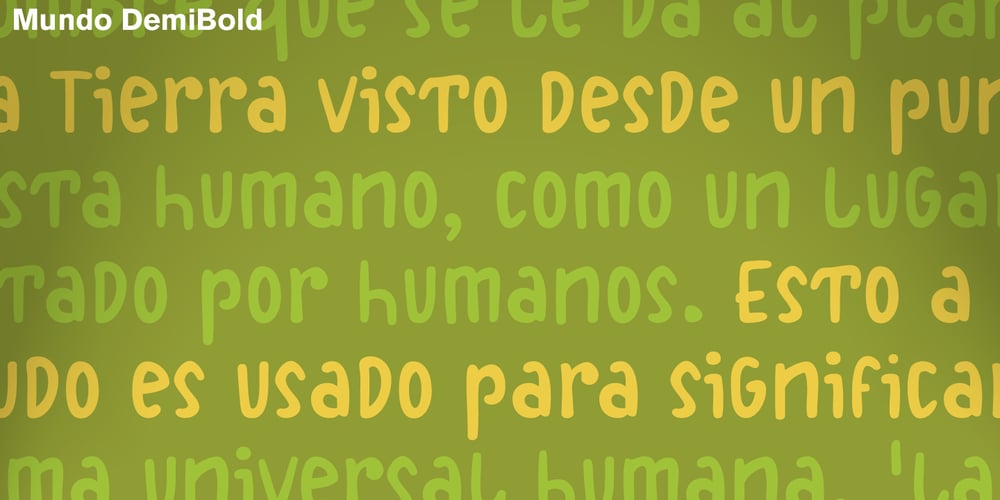
Mundo DemiBold
Mundo DemiBold font
Mundo DemiBold Font Family was designed by José Manuel Urós and published by Type-Ø-Tones. Mundo DemiBold contains 1 styles and family package options. Mundo DemiBold is the perfect counterpart of the Hannover Modern, the other Javier Mariscal typeface in our catalogue. This nice font belongs to a series of drawings used in the Señor Mundo comic strip of the nineties.